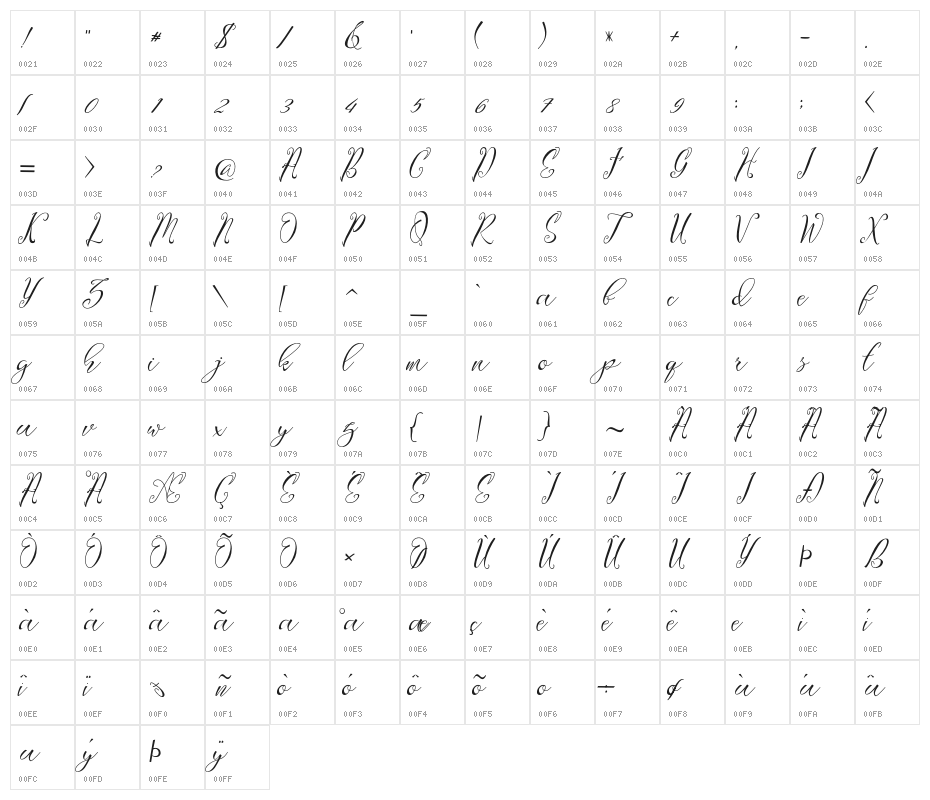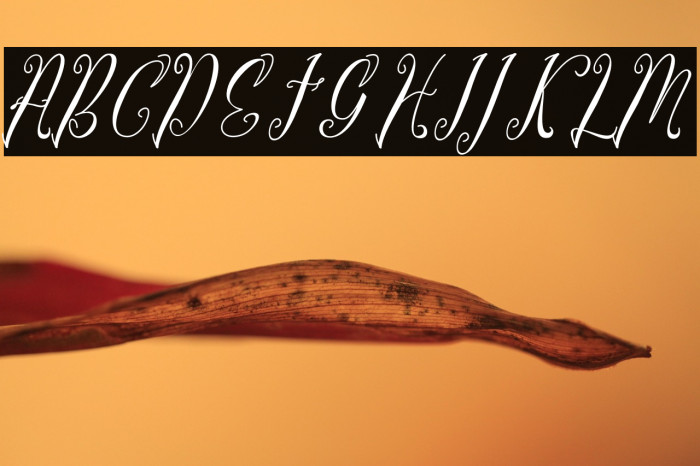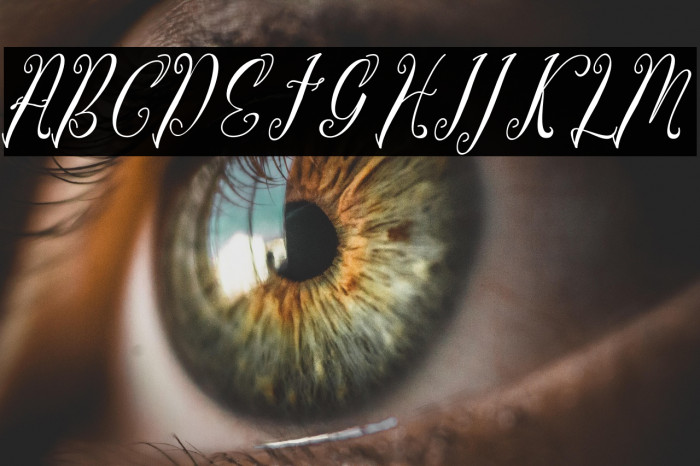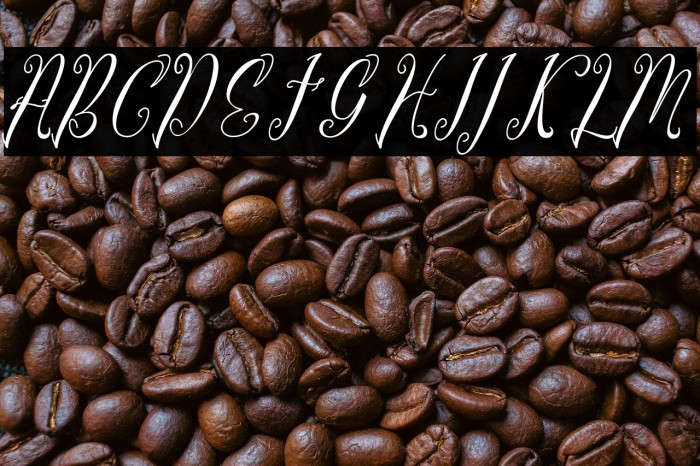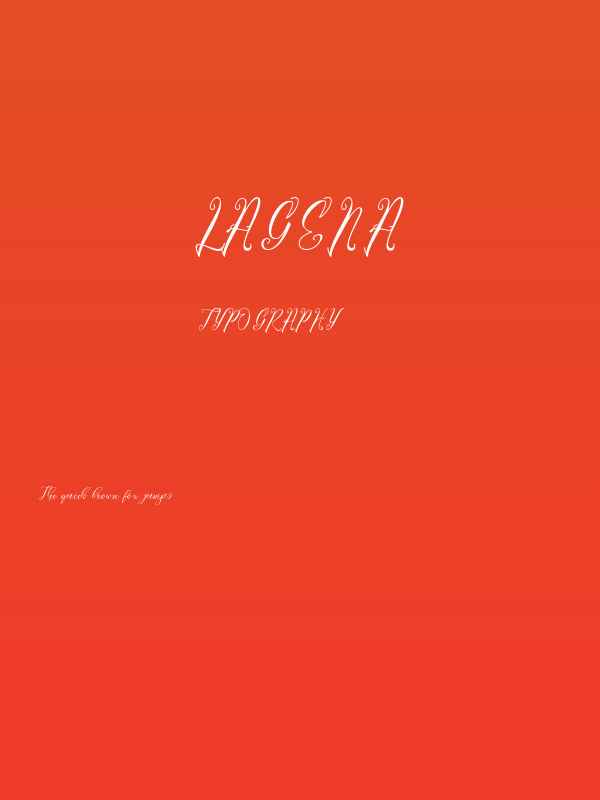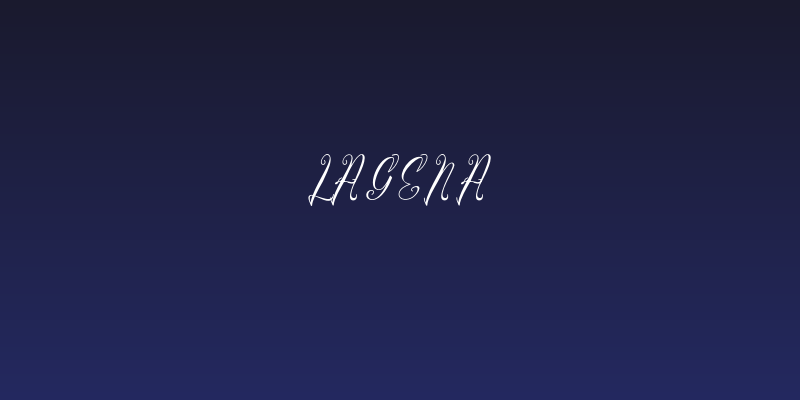
Lagena Font
Lagena Description
This elegant script font features a flowing, cursive style with intricate swirls and loops that give it a sophisticated and artistic appearance. The uppercase letters are particularly ornate, with extended flourishes that add a touch of grandeur. The lowercase letters maintain a smooth, connected flow, enhancing readability while retaining an artistic flair. Numbers and special characters are designed to match the overall aesthetic, ensuring consistency across all uses. This font is perfect for projects that require a touch of elegance and creativity.
| Overall Style | Elegant, Artistic |
| Use Case | Headlines, Invitations, Decorative Text |
| Proposed Projects | Ideal for wedding invitations, elegant branding, artistic posters, and decorative signage. |